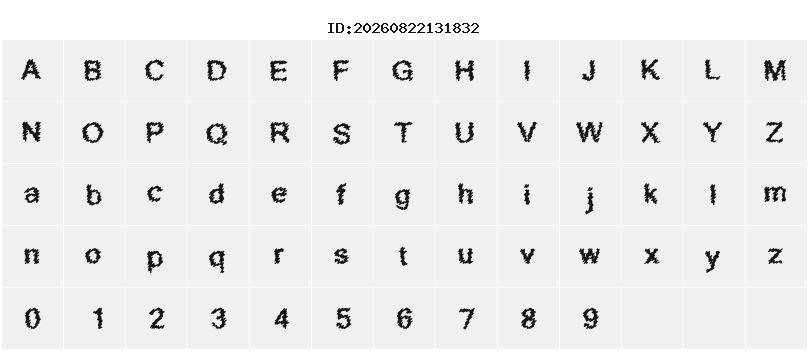
Scribbled Preview
• Font Name: Scribbled
• Full Font Name: Scribbled Regular
• Designer: Adrian Candela
• Description: Scribbled Regular is a font by Adrian Candela, designed by Adrian Candela in 2013.
About Scribbled.otf
Scribbled.otf is a modern, elegant sans-serif font designed for ultimate readability and visual harmony. Perfect for branding, headlines, web design, and print materials.